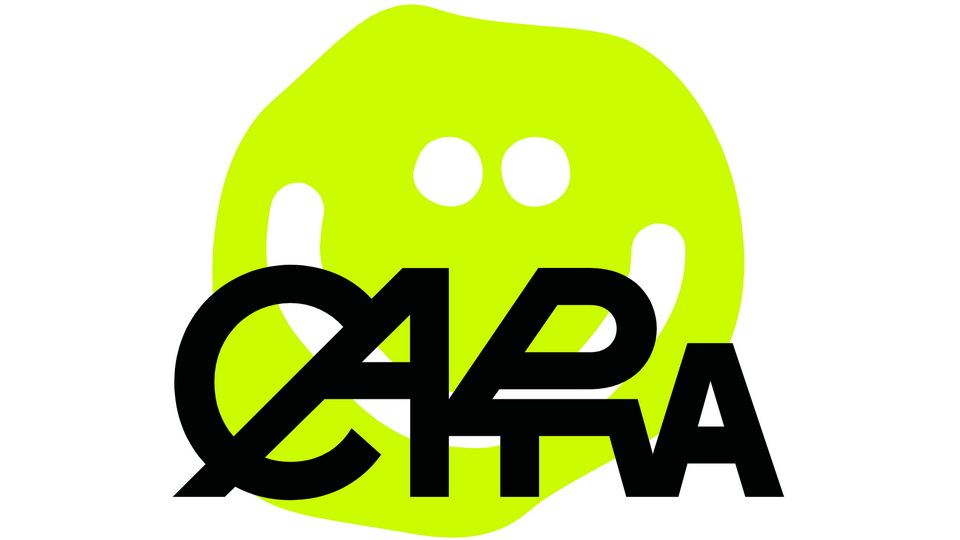
Download Cakra font, an experimental display typeface with a unique personality and contemporary vibe. Cakra is perfect for logos, headlines, posters, art projects, social media, visual identity, film posters, music cover art, and so on.